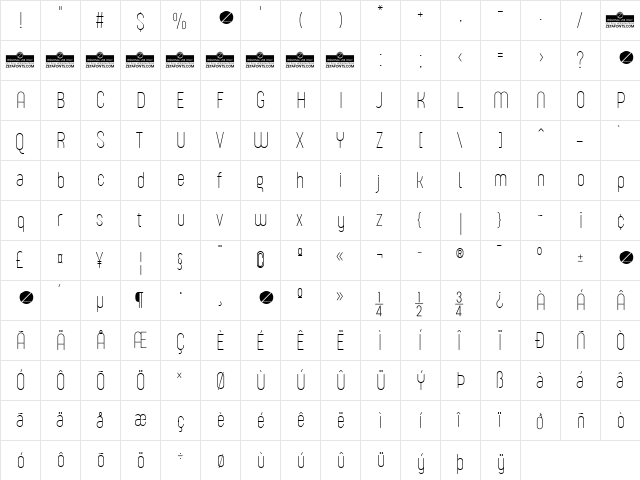
Sugo Pro Display Trial Thin
| Foundry | Zetafonts |
| Designer | Cosimo Lorenzo Pancini |
Design Context for Sugo Pro Display Trial Typeface
Sugo Pro Display Trial brings ornamental detail and strong personality to headlines and identities, where visual impact matters more than quiet functionality. The delicate stroke weight brings airiness and refinement to layouts.
Font Pairing: Pair with a clean neutral sans-serif for body copy to let Sugo Pro Display Trial's character lead without overwhelming the composition.
Pro Tip: Use Sugo Pro Display Trial exclusively at display sizes — it was designed to be seen, not read at length. Let a neutral companion handle body copy.